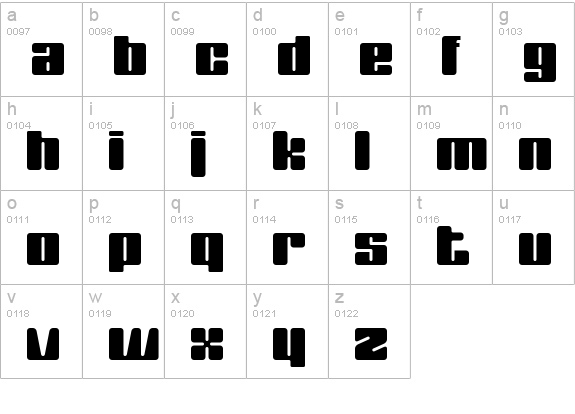
SquareWise Font Details
Introducing SquareWise, a modern and stylish font that exudes both elegance and versatility. This typeface is the perfect choice for designers, businesses, and individuals looking to make a bold statement with their typography. With its clean lines, sharp edges, and geometric shapes, SquareWise effortlessly captures attention and adds a touch of sophistication to any project. What sets SquareWise apart is not only its impeccable design but also its accessibility. This font is freely available to download at FontsMarket.com, making it easily accessible to all who seek to elevate their creative endeavors. Whether you're designing a logo, crafting invitations, or creating stunning visuals for your website, SquareWise empowers you to express your unique vision with ease. The versatility of SquareWise is truly remarkable. Its distinctive characters and well-balanced proportions make it suitable for a wide range of applications. From headlines to body text, this font effortlessly adapts to different sizes and contexts, ensuring readability and visual appeal in every situation. The meticulous attention to detail in the creation of SquareWise is evident in its extensive character set. With uppercase and lowercase letters, numerals, punctuation marks, and a selection of special characters, this font provides all the tools you need to bring your design visions to life. SquareWise is not just a font; it's a powerful tool that unlocks endless creative possibilities. Its timeless yet contemporary design makes it ideal for both print and digital projects. Whether you're a seasoned designer or a novice in the world of typography, SquareWise is sure to inspire and elevate your work to new heights. Don't miss out on this incredible opportunity to enhance your designs with SquareWise. Download it for free today at FontsMarket.com and embark on a journey of limitless creativity. Elevate your projects with the modern and captivating charm of SquareWise and leave a lasting impression on your audience.